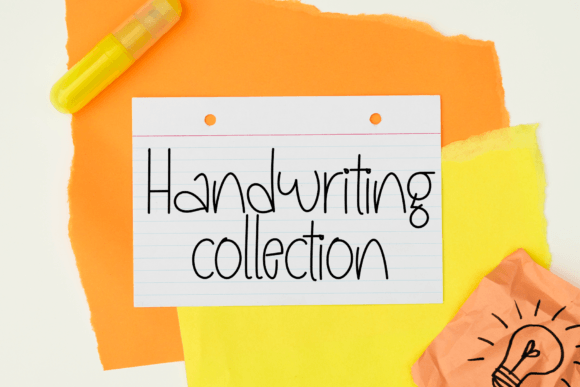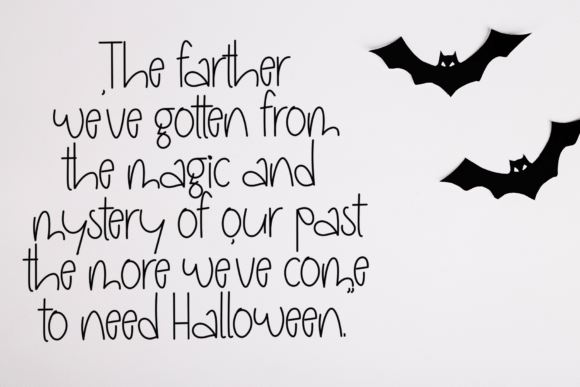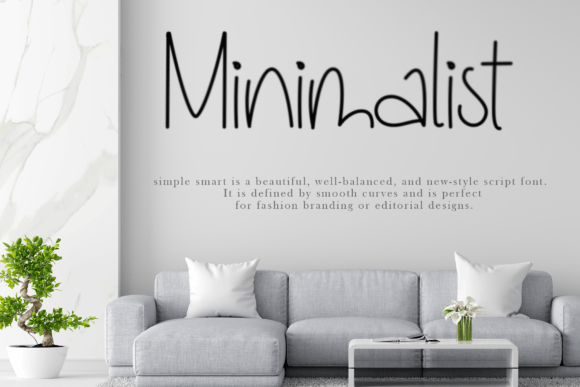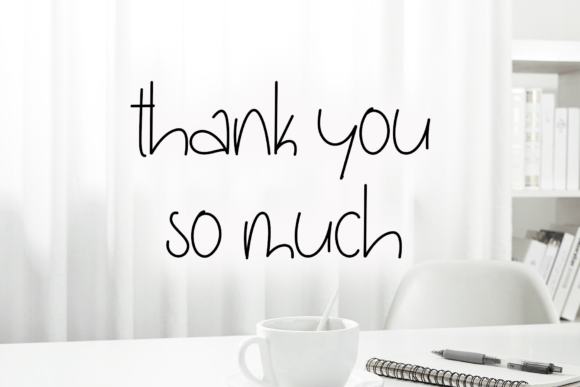
Introduction to Simple Smart Font Font
Fonts play a crucial role in design, and the Simple Smart Font font is a typeface that brings both character and versatility to any project. Whether you’re working on a branding project, a website, or a print design, the Simple Smart Font font offers a unique style that can elevate your work.
Simple Smart is a fun and unique handwritten font.
Its quirky vibe makes it the perfect font for a wide range of projects that require a friendly touch .
Key Features of Simple Smart Font Font
Why Choose Simple Smart Font Font?
The Simple Smart Font font is more than just a typeface – it’s a design tool that helps you communicate your message with style and clarity. Its unique character set and versatile design make it suitable for a wide range of applications, from elegant invitations to bold headlines.
With its carefully crafted letterforms and balanced proportions, the Simple Smart Font font ensures readability and visual appeal across all mediums.
What makes Simple Smart Font font special?
The Simple Smart Font font stands out with its unique design, exceptional readability, and versatility across various design applications.